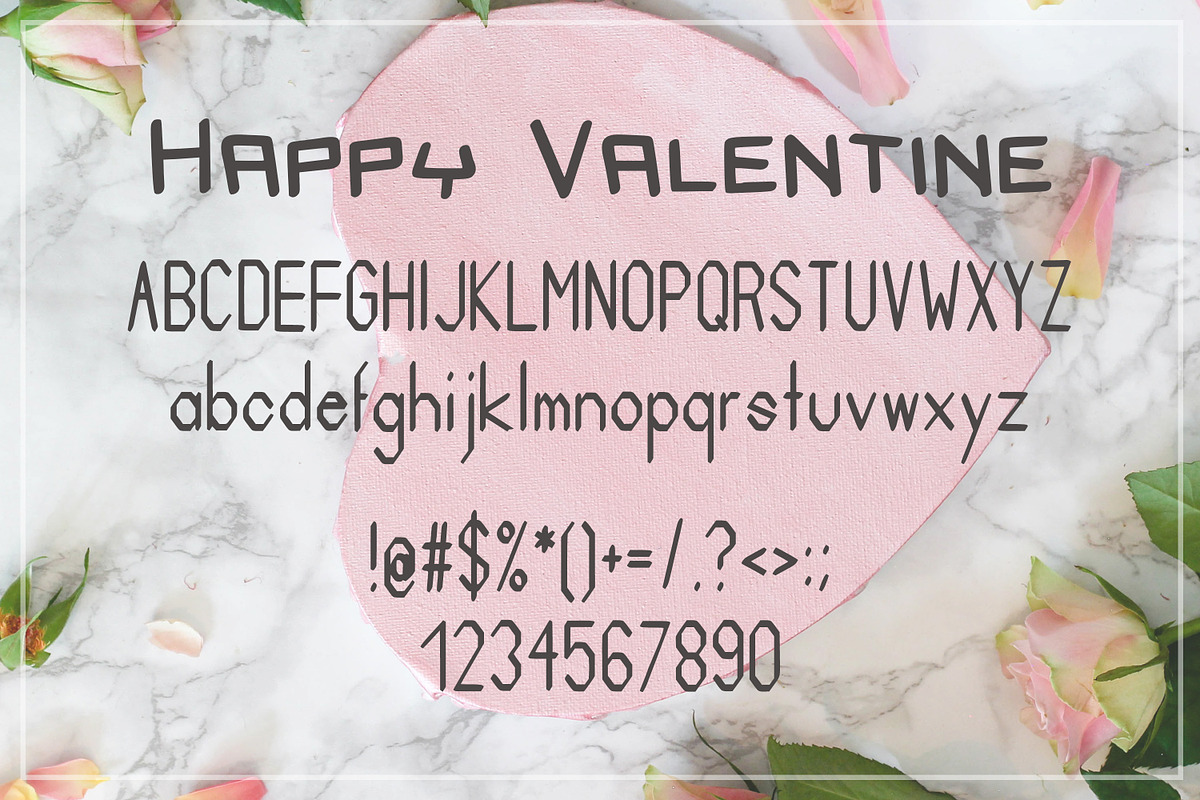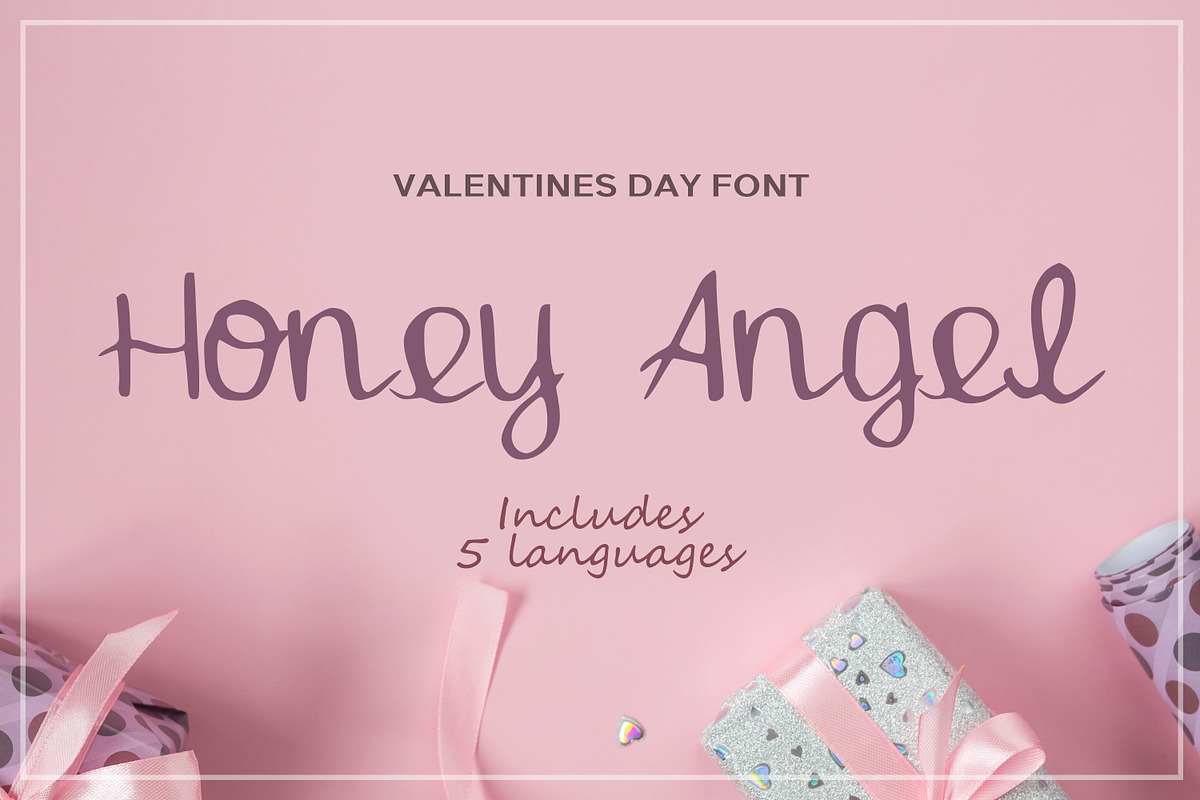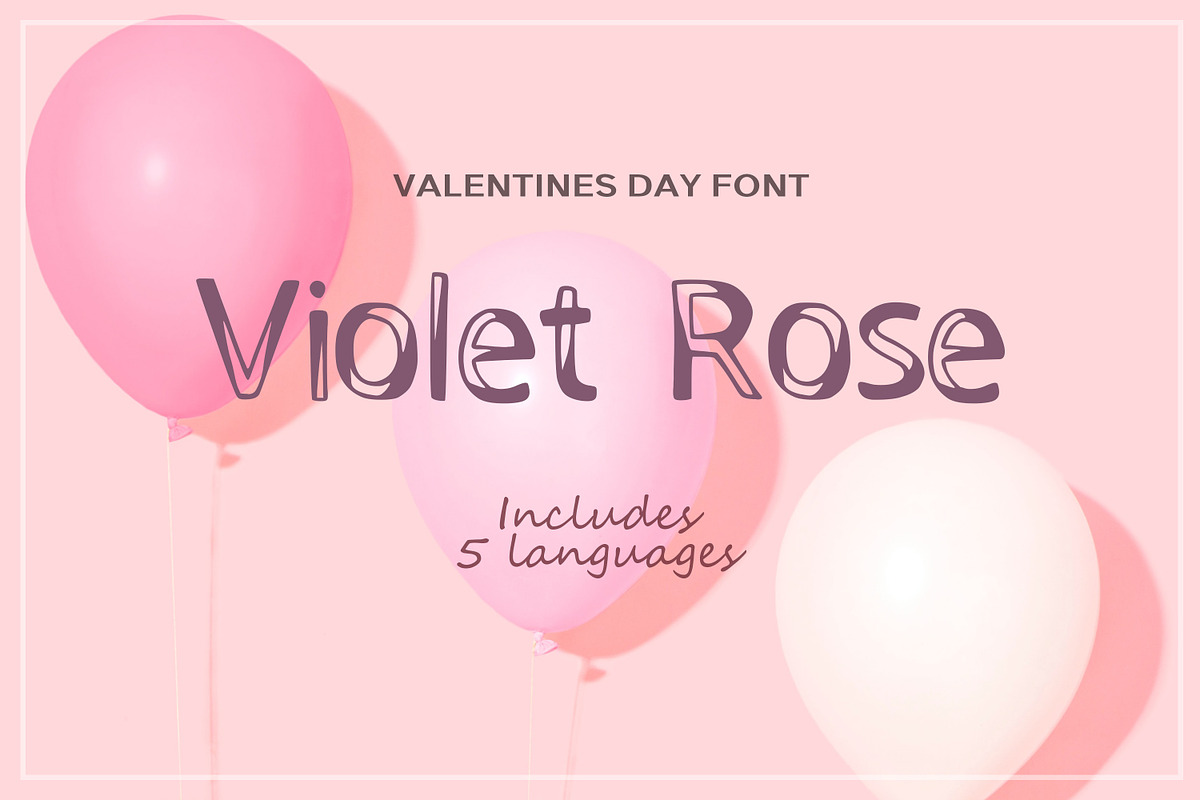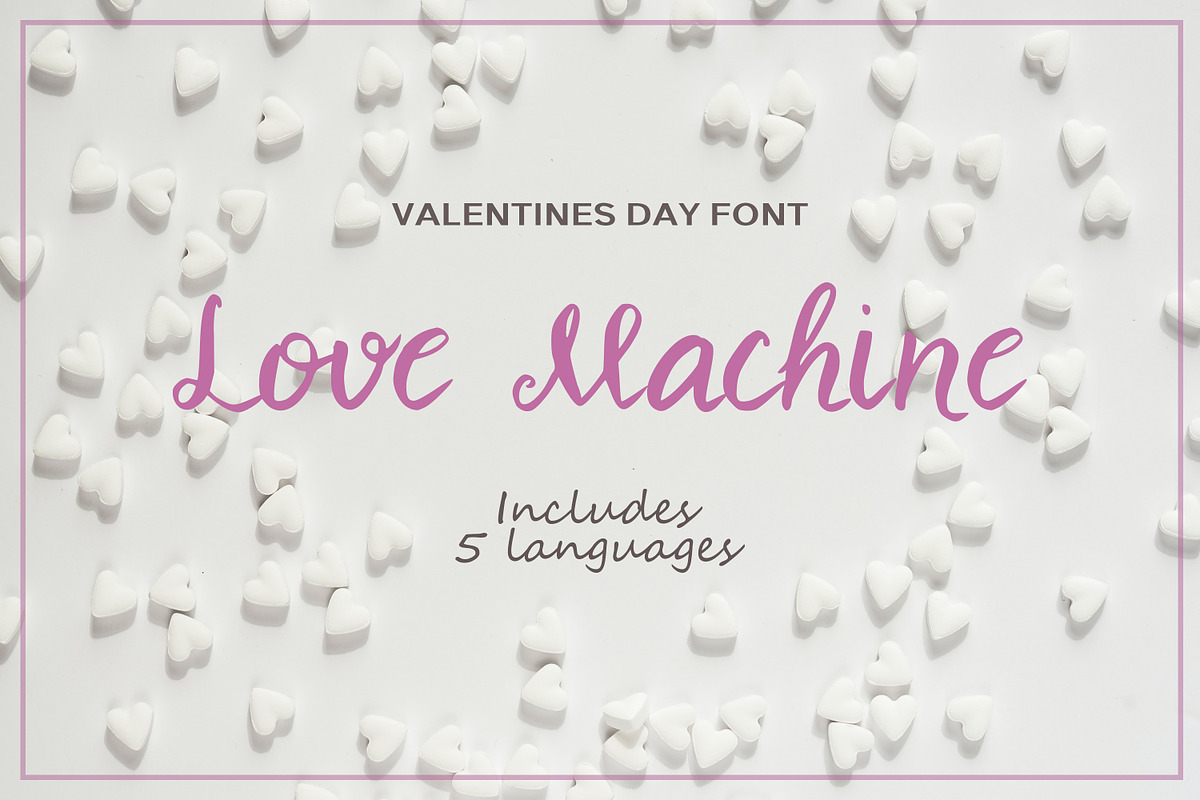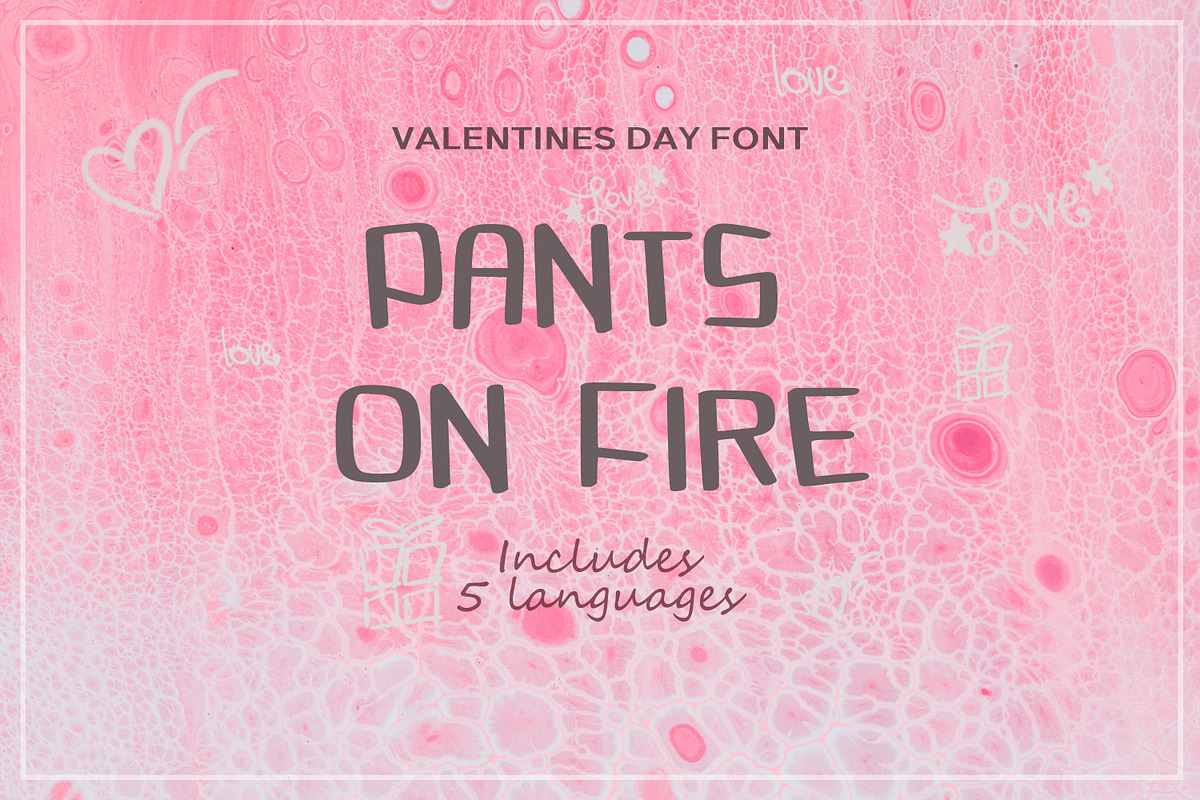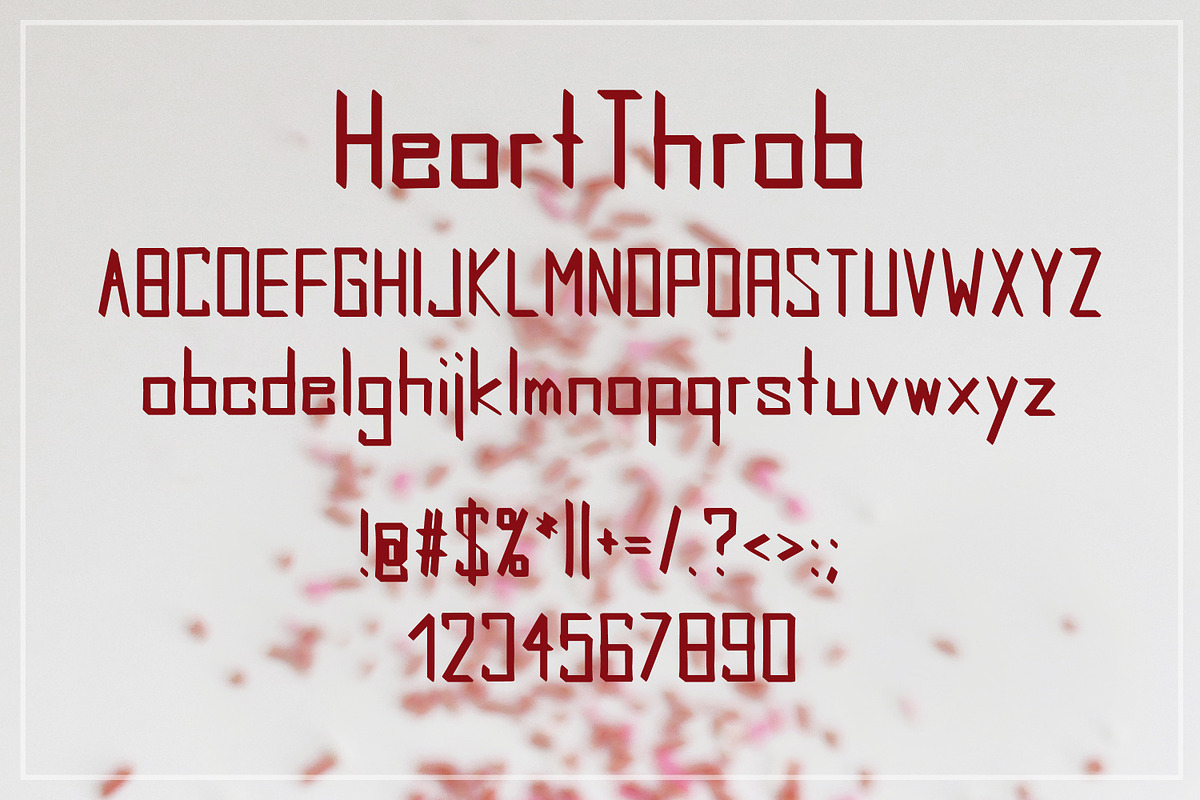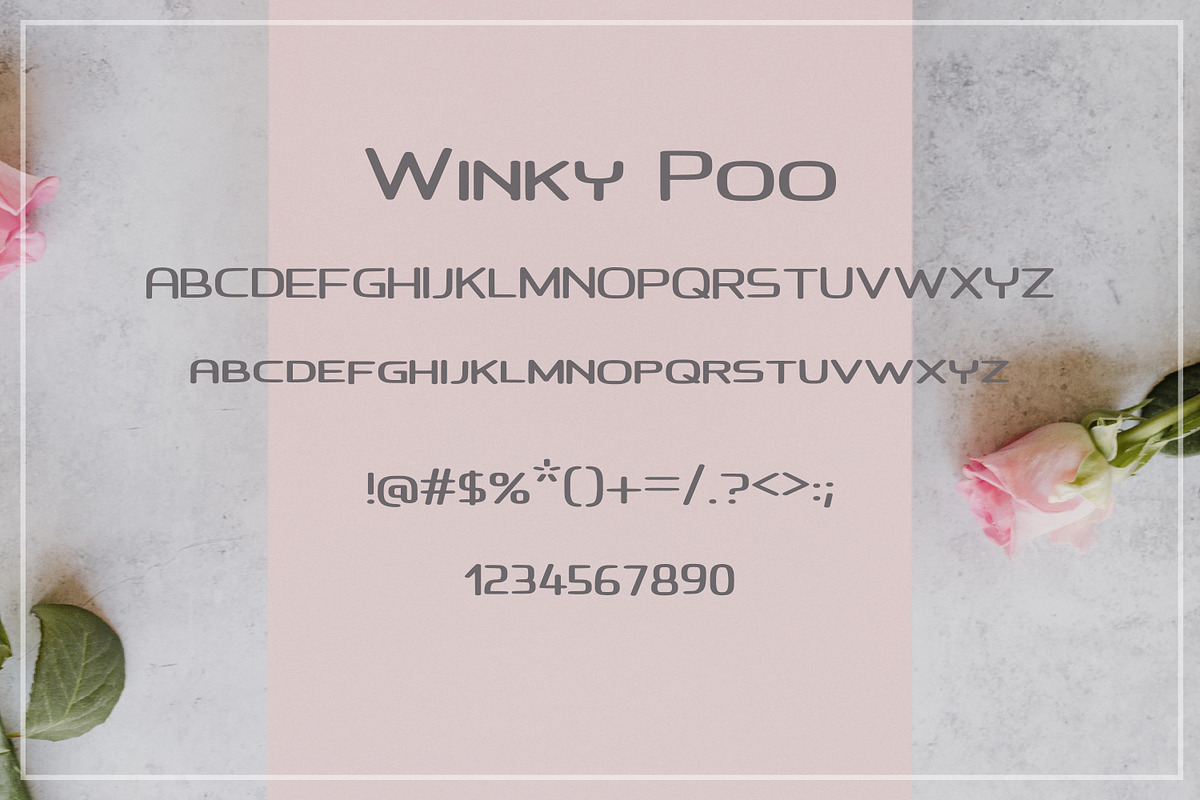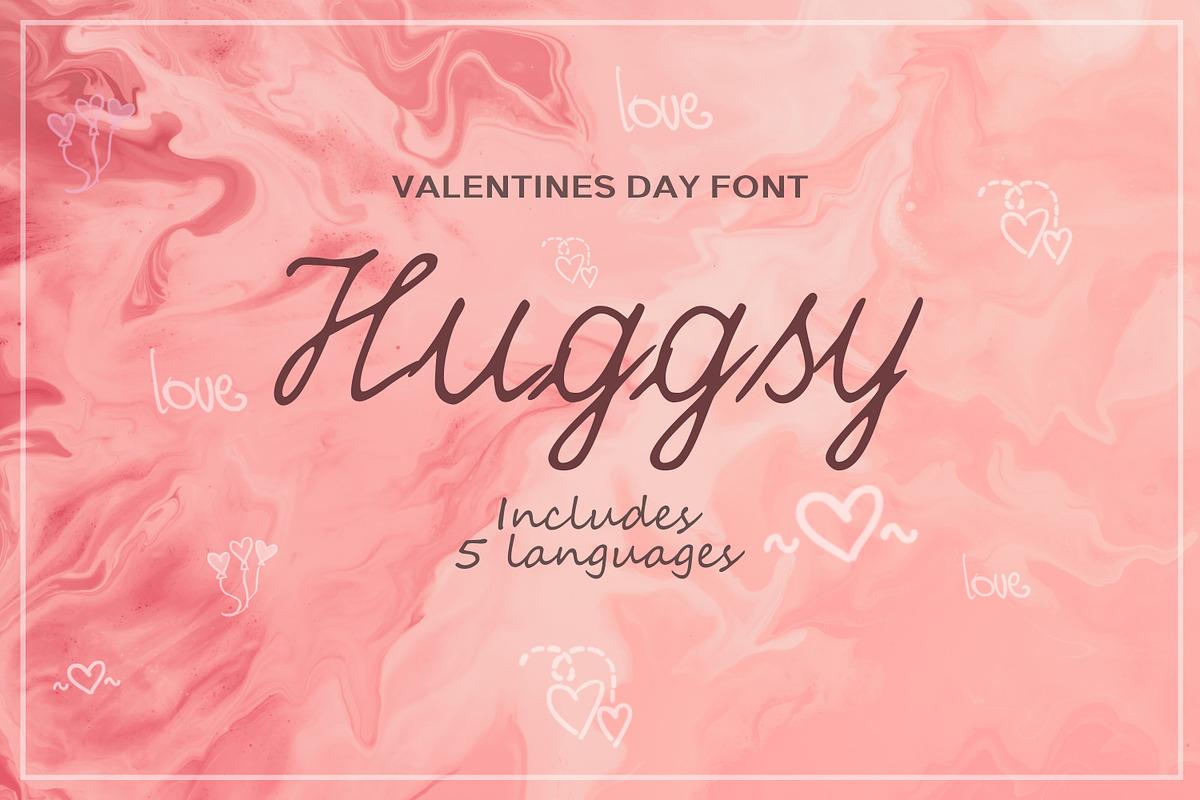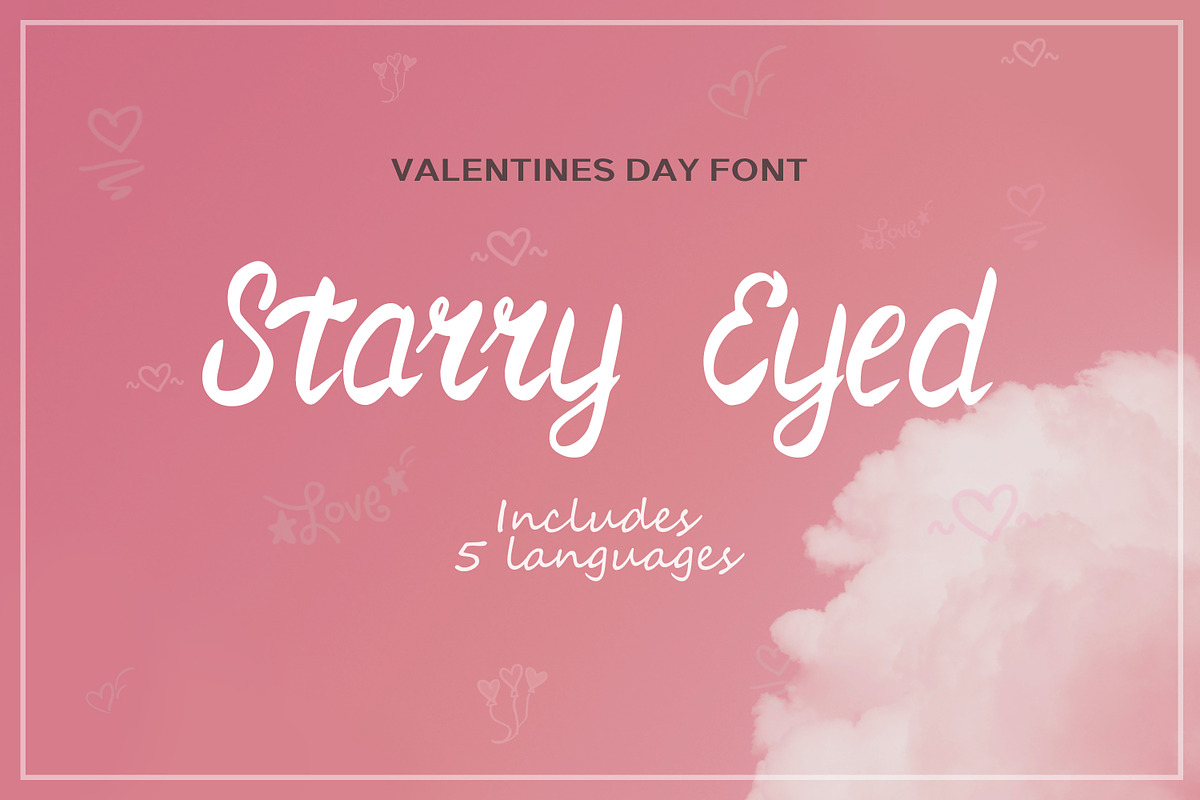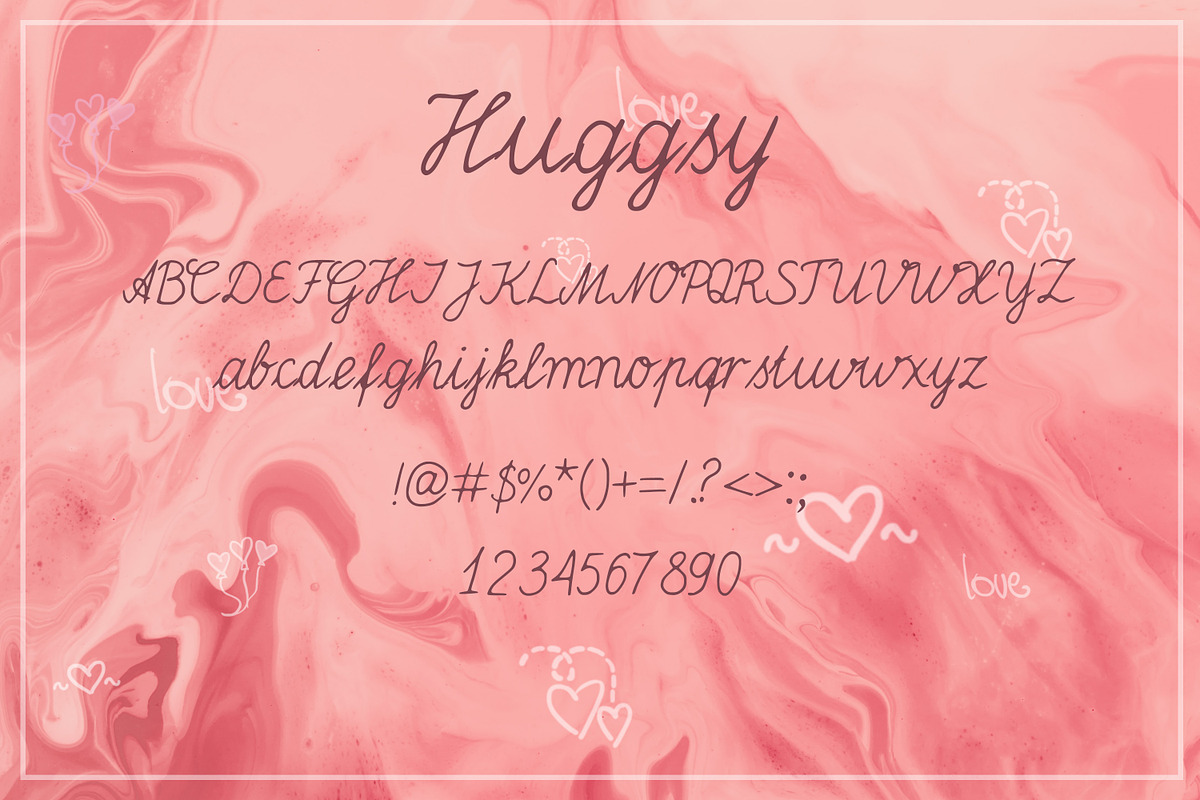
25 Valentine's Day Fonts
Charming and sweet fonts - perfect for casual type in greeting cards, illustrations, quotes, quaint branding, book covers, children's books, packaging and so much more :)
25 Fonts.